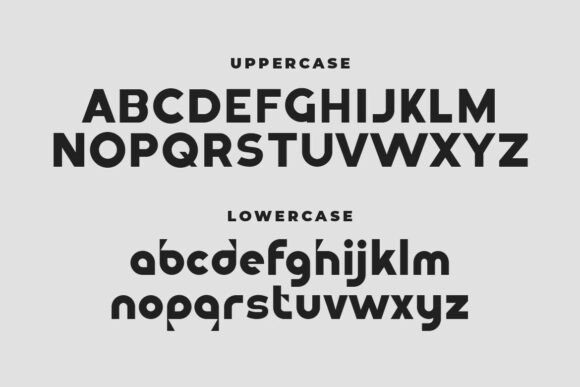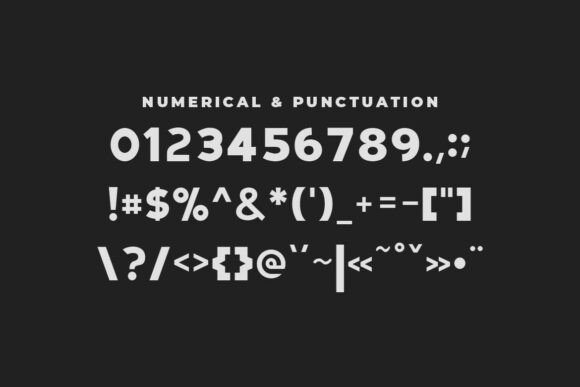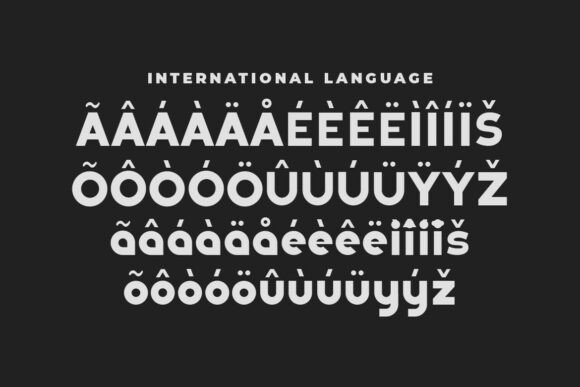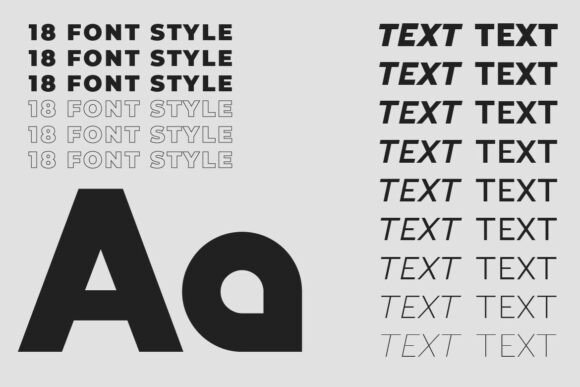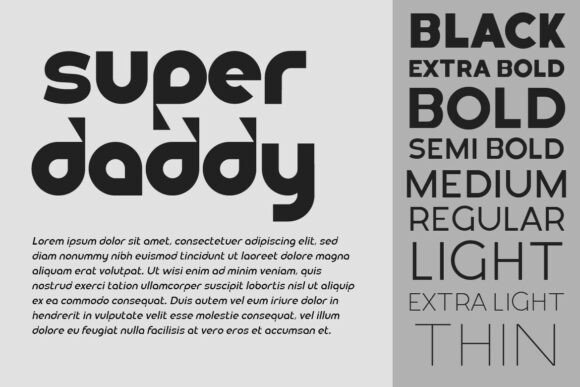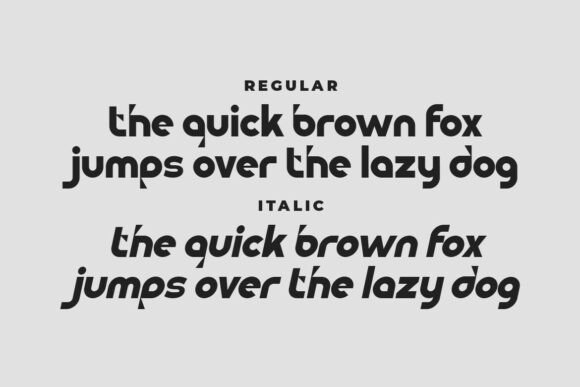
Bodda Font: The Ultimate Sans Serif for Modern Designs
In the realm of typography, a font can make or break a design. With the vast array of fonts available, finding the perfect one that embodies both style and functionality can be a daunting task. However, for those seeking a clean, contemporary, and versatile sans serif font, Bodda Font stands out as an exceptional choice. Designed with flexibility and timeless appeal in mind, Bodda is a font family that seamlessly adapts to various design needs, making it a favorite among designers and crafters alike.
The Essence of Bodda Font
Bodda is characterized by its balanced proportions, smooth curves, and geometric structure. These features not only contribute to its aesthetic appeal but also enhance its readability across different mediums. Whether it’s for branding and corporate identity, editorial layouts, web design, packaging, or presentations, Bodda proves to be a reliable and stylish companion. Its clean lines and contemporary look make it an ideal choice for designers looking to convey a sense of modernity and sophistication.
Key Features of Bodda Font
- Balanced Proportions: Bodda’s design ensures that every letter is in harmony with the others, creating a visually pleasing text that is easy on the eyes.
- Smooth Curves: The subtle curves in Bodda add a touch of elegance, making it suitable for designs that require a bit of sophistication.
- Geometric Structure: The geometric foundation of Bodda lends it a modern and structured look, perfect for designs that demand precision and clarity.
- Flexibility: Bodda’s versatility is one of its standout features. It can be used in a wide range of design projects, from digital platforms to print materials.
- Timeless Appeal: Unlike trends that fade over time, Bodda’s classic design ensures that your work remains relevant and stylish for years to come.
Applications of Bodda Font
The versatility of Bodda Font makes it suitable for a myriad of applications. Here are some of the areas where Bodda truly shines:
- Branding and Corporate Identity: Create a lasting impression with Bodda’s clean and professional look, perfect for logos, business cards, and letterheads.
- Editorial Layouts: Enhance the readability and aesthetic of your articles, magazines, and newspapers with Bodda’s balanced and elegant design.
- Web Design: Bodda’s web-friendly design ensures that your website’s text is clear, readable, and engaging across all devices.
- Packaging: Stand out on store shelves with Bodda’s modern and stylish appearance, ideal for product labels and packaging materials.
- Presentations: Elevate your presentations with Bodda’s professional and clean look, making your content more impactful and memorable.
Why Choose Bodda Font?
In a world where design trends are constantly evolving, Bodda Font offers a refreshing blend of modernity and timelessness. Its design caters to the needs of contemporary designers who seek a font that is not only stylish but also versatile and readable. With Bodda, you can achieve a cohesive look across your projects, ensuring that your design message is conveyed effectively and elegantly.
Bodda Font is more than just a typeface; it’s a design companion that understands the needs of modern designers and crafters. Its clean and contemporary sans serif design, coupled with its flexibility and timeless appeal, makes it an invaluable asset in the world of design. Whether you’re working on a branding project, designing an editorial layout, or crafting a presentation, Bodda Font is the perfect choice for those who seek elegance, versatility, and clarity in their work.